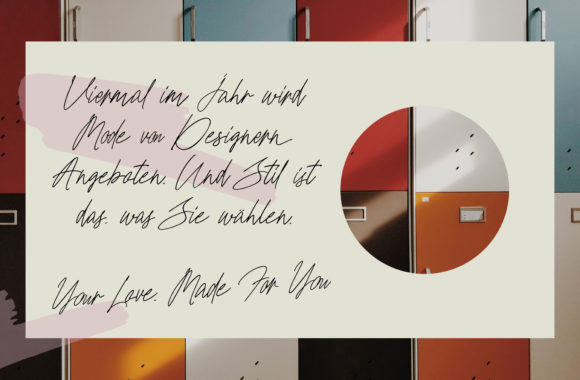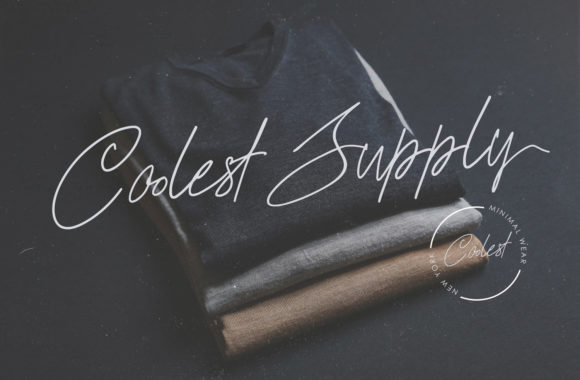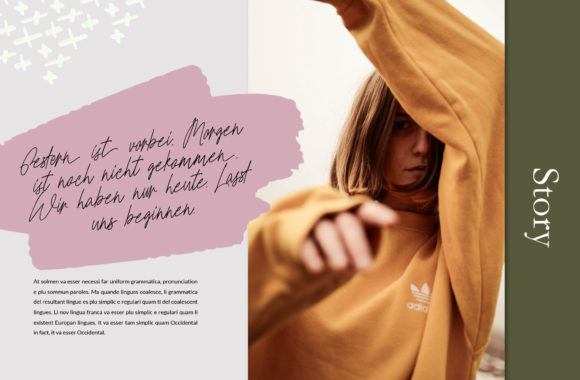
About Beatrice Line Font
The Beatrice Line is an unique handwritten font. Its unique flow and easy signature style makes it perfect for quotes, logos, signatures, labels, packaging designs, blog headlines or simply use it in your next design project.